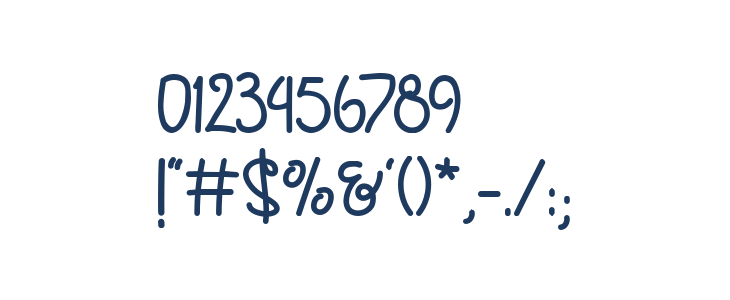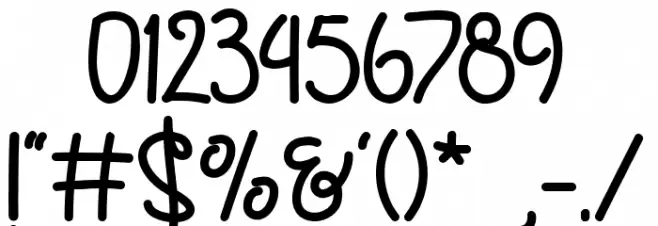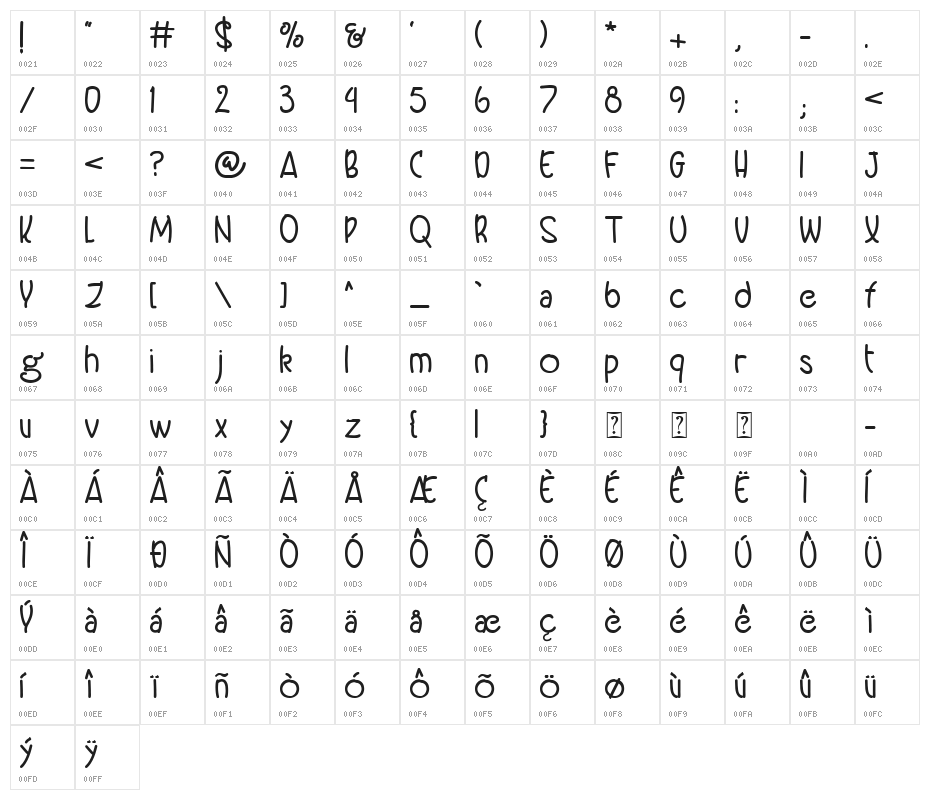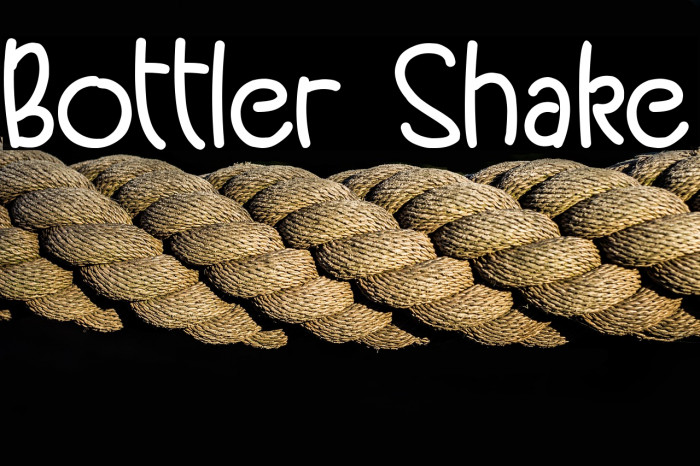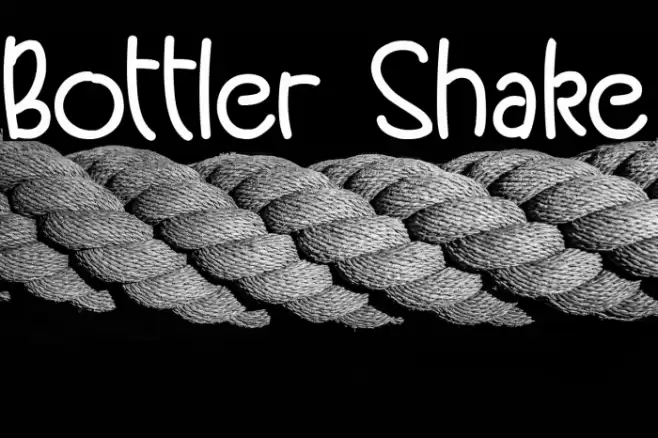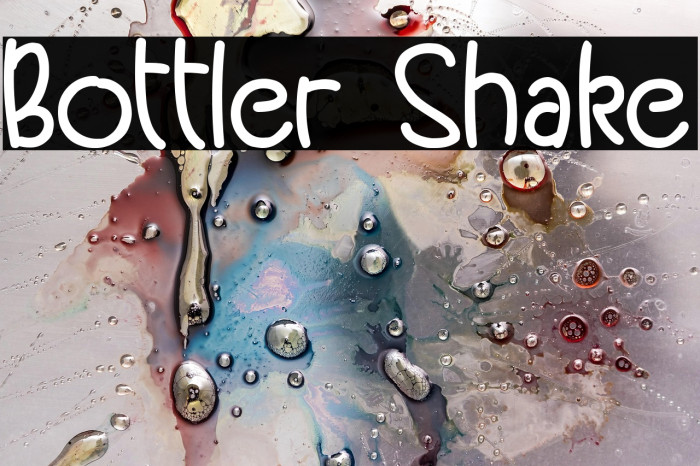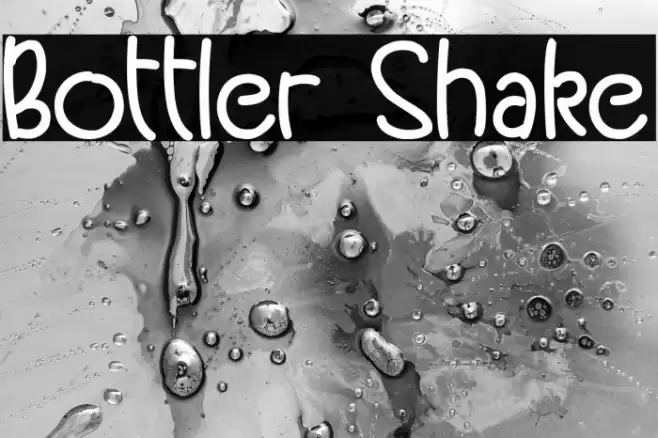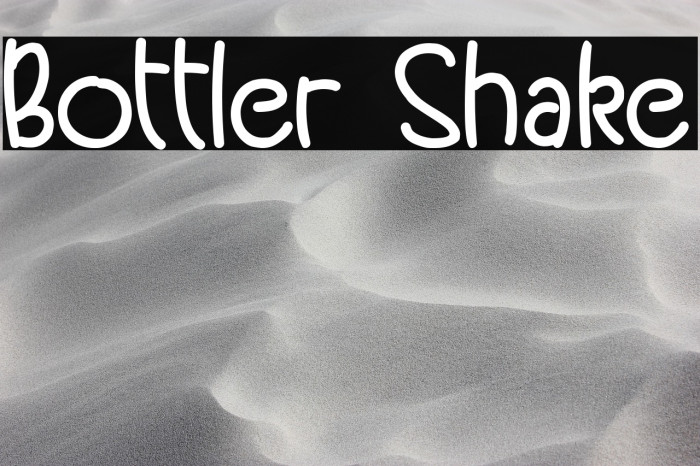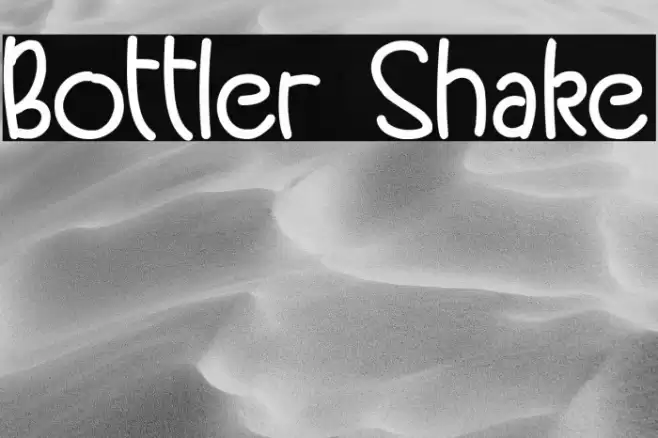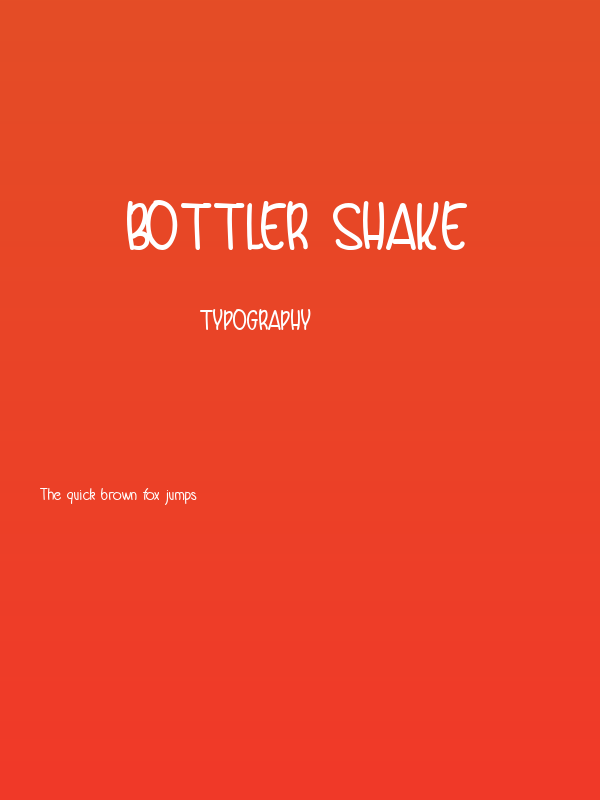
Bottler Shake Font
Bottler Shake Description
This font features a playful and whimsical style, characterized by its rounded and slightly irregular letterforms. The strokes are smooth and consistent, giving it a friendly and approachable appearance. The uppercase and lowercase letters maintain a cohesive look, with a slight slant that adds to its casual charm. The numerals and special characters are designed to match the overall aesthetic, making it versatile for various uses. Its unique style makes it stand out, while still being legible and functional.